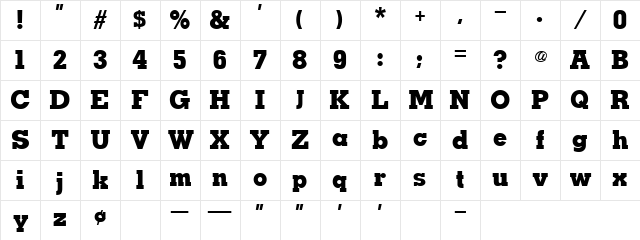
Orleans Regular Font Preview
Orleans Regular
Design Context for Orleans Typeface
Orleans offers clean, dependable letterforms without strong stylistic allegiance, making it a practical choice for designers who need flexibility.
Pro Tip: Use Orleans in both headline and body roles to test its range before committing to a single application.